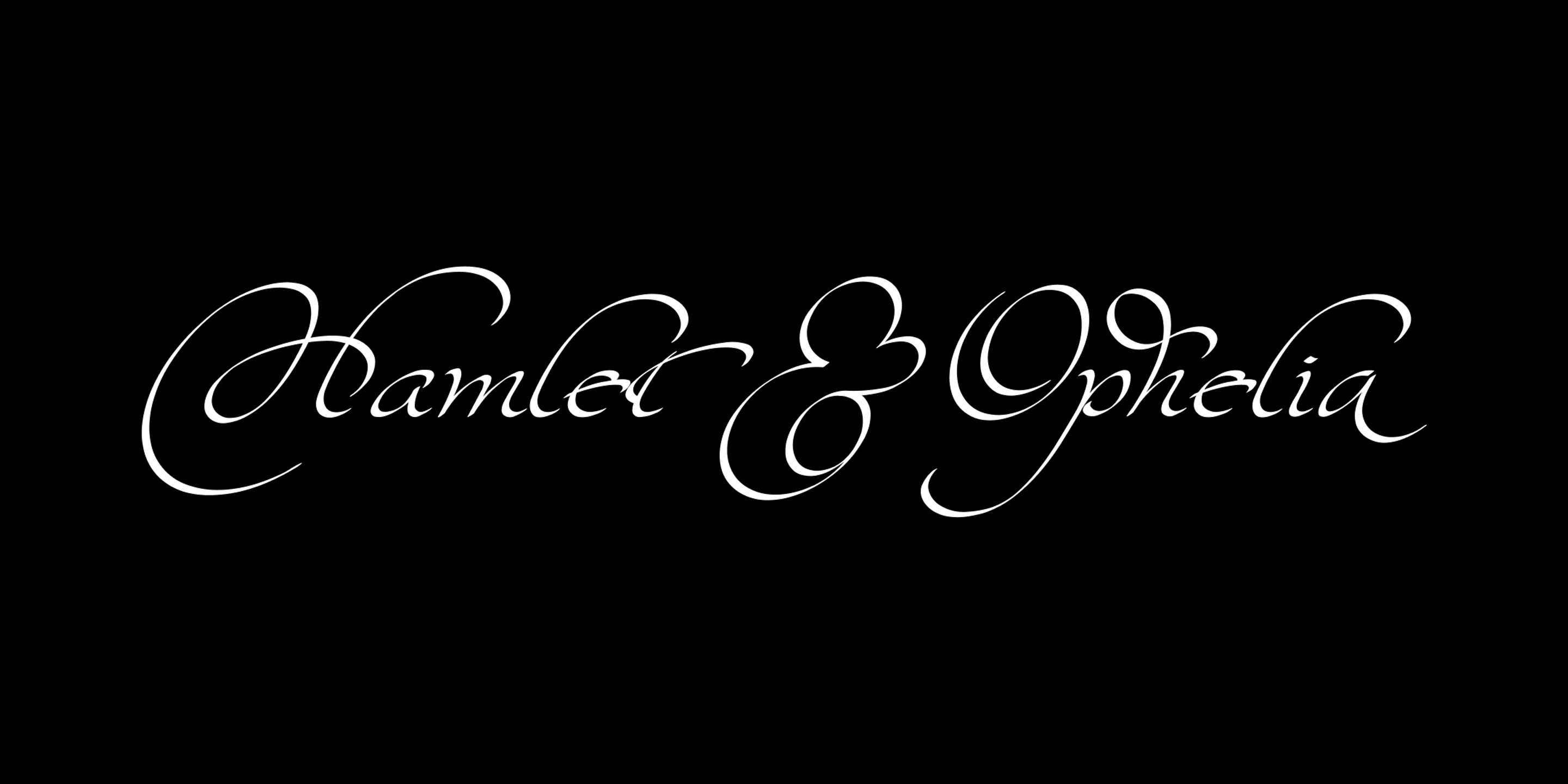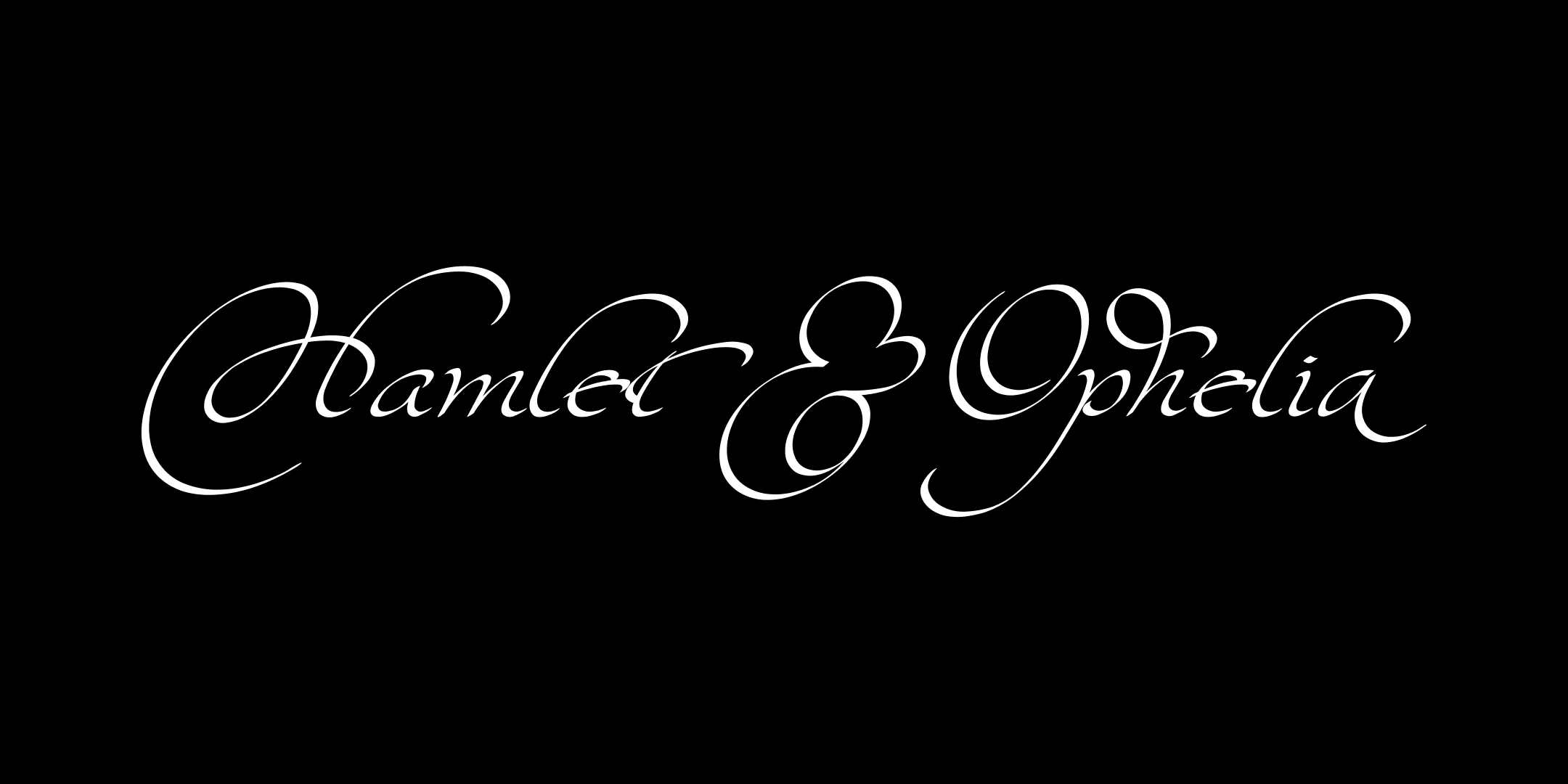
Kaligrafia Galana font by Sproviero Type — the words “Hamlet & Ophelia” in a connected, high-contrast script with swash capitals
Kaligrafia Galana Dos
Kaligrafia Galana Swashes
Kaligrafia Galana Tres
Kaligrafia Galana Uno
Kaligrafia Galana Details
Kaligrafia Galana is a romantic, flourish-rich script bringing calligraphic elegance to life. Each glyph feels handcrafted and expressive, with sweeping curves, dramatic loops, and delicate thins. From subtle to dramatic, its four styles offer varying levels of ornamentation and swash. Giving a strong feeling of hand lettering, it is perfect for wedding invitations, formal announcements, poetry covers, or anything that calls for a graceful, unforgettable typographic touch.